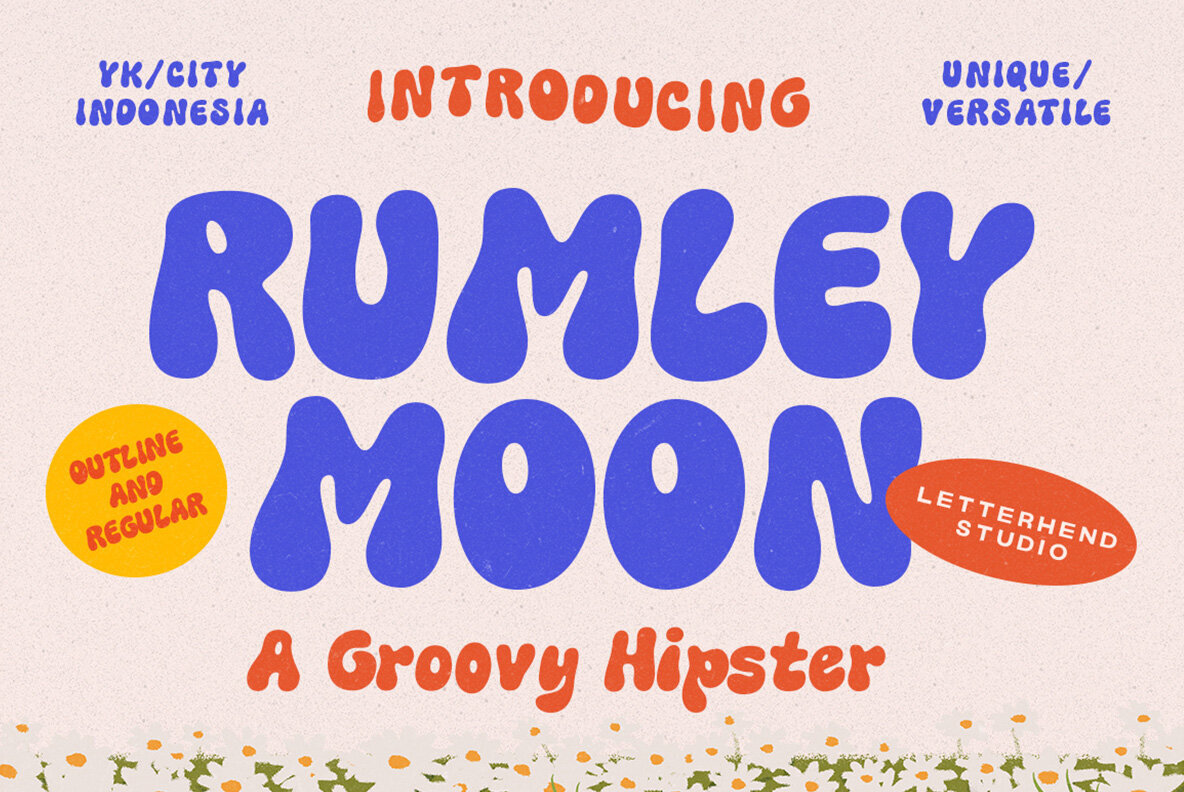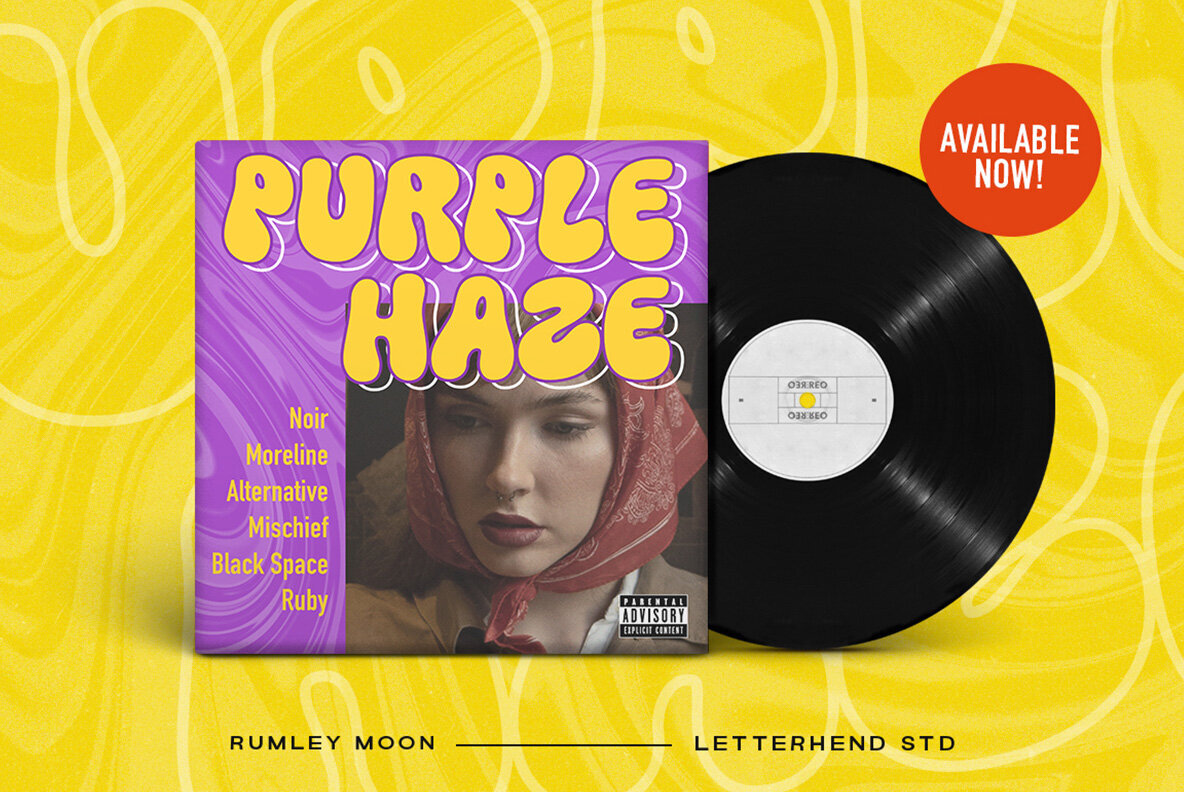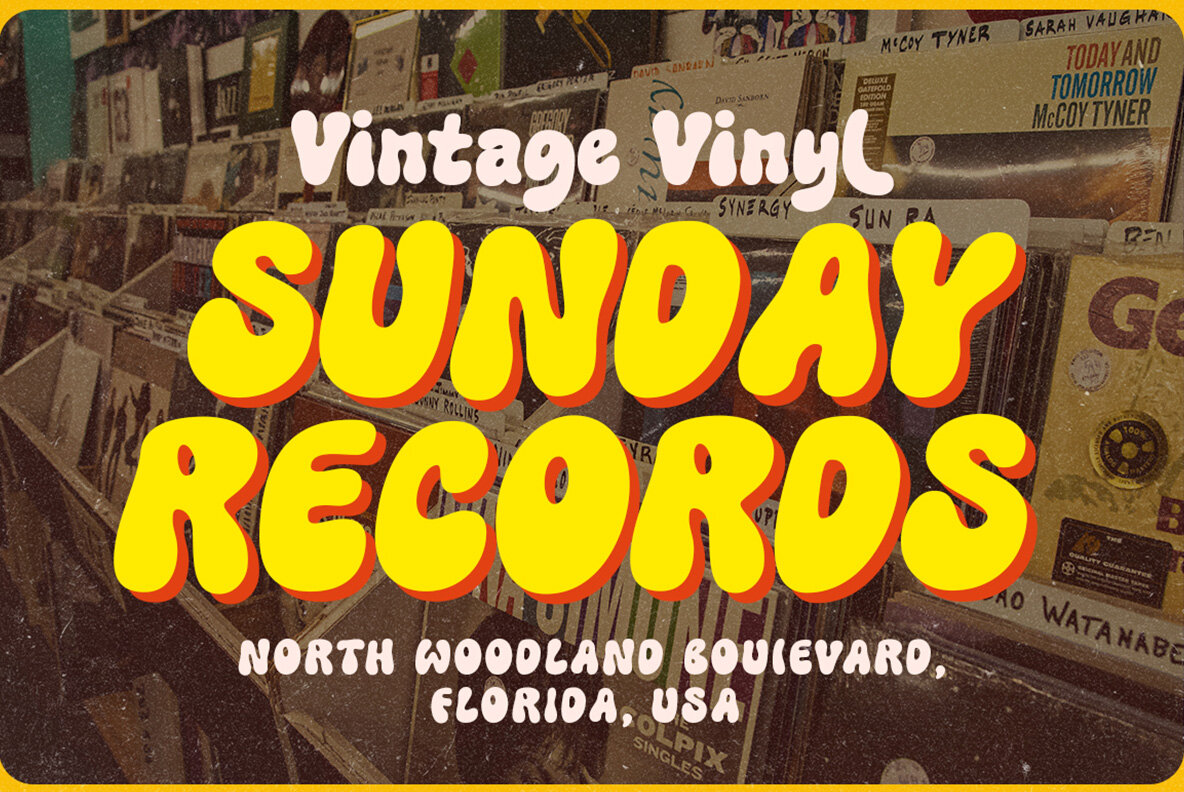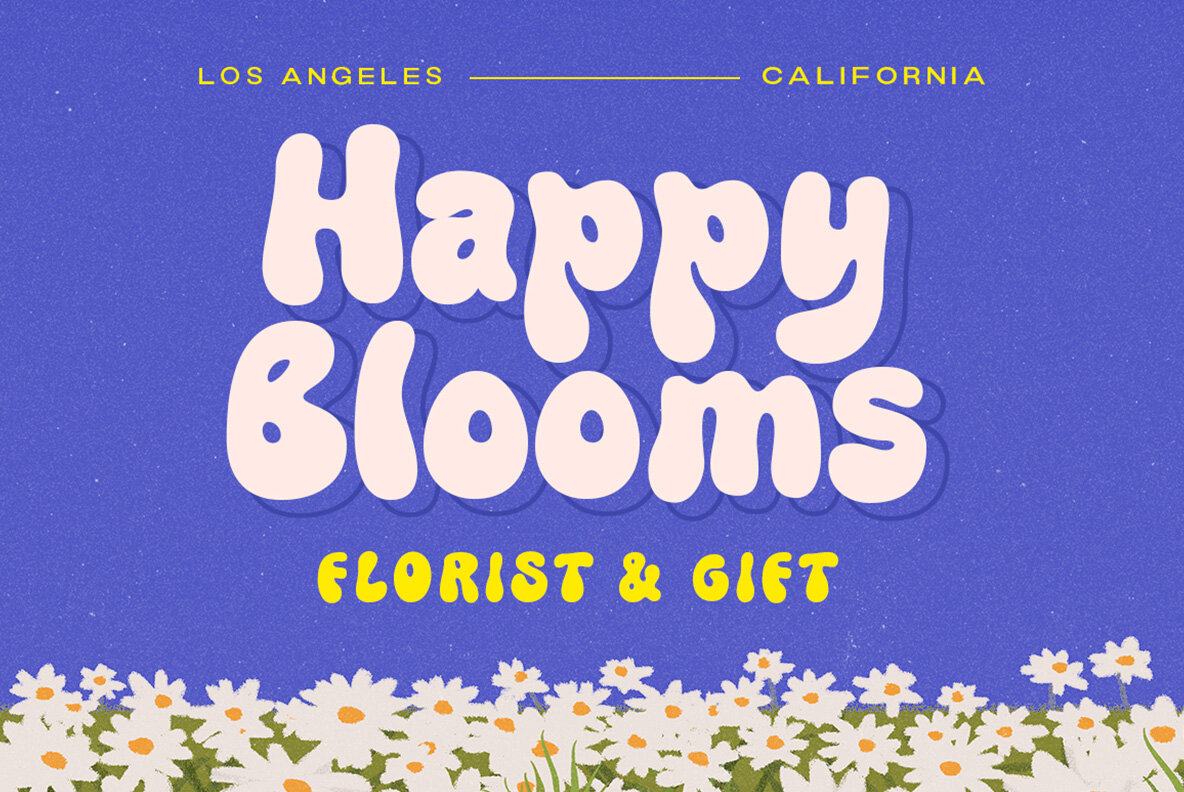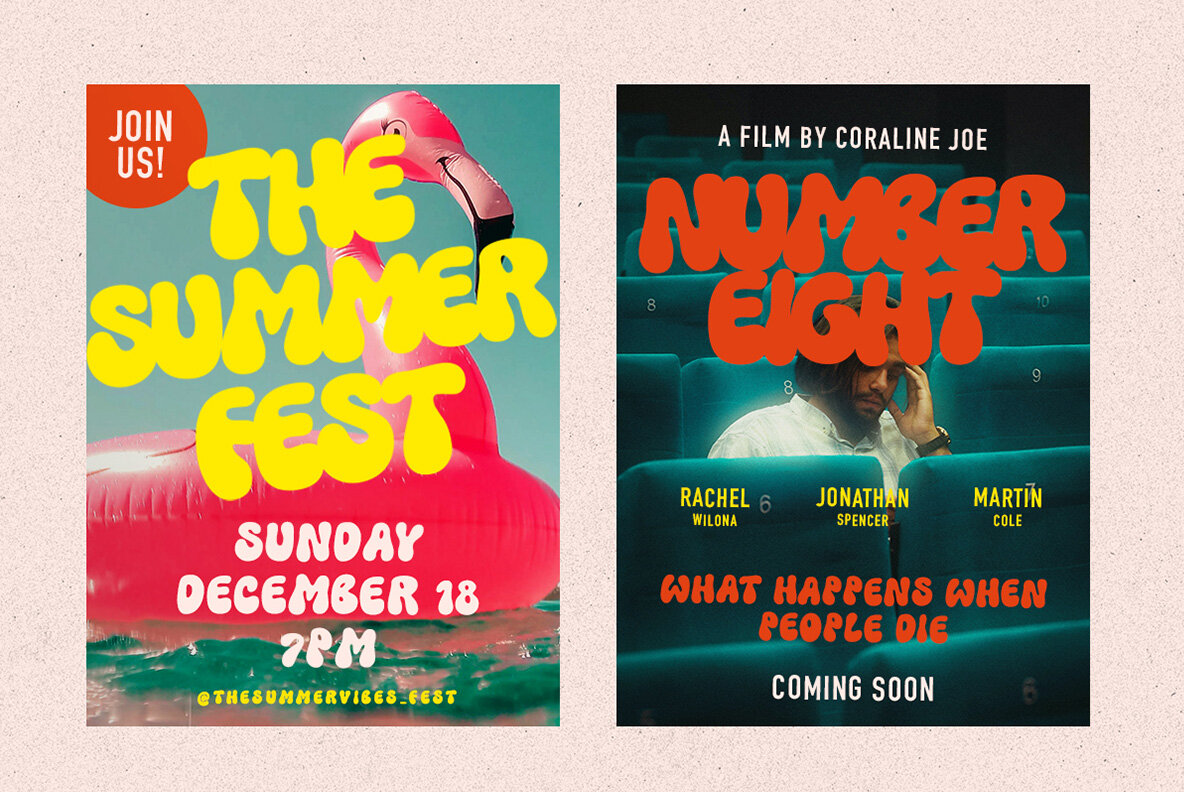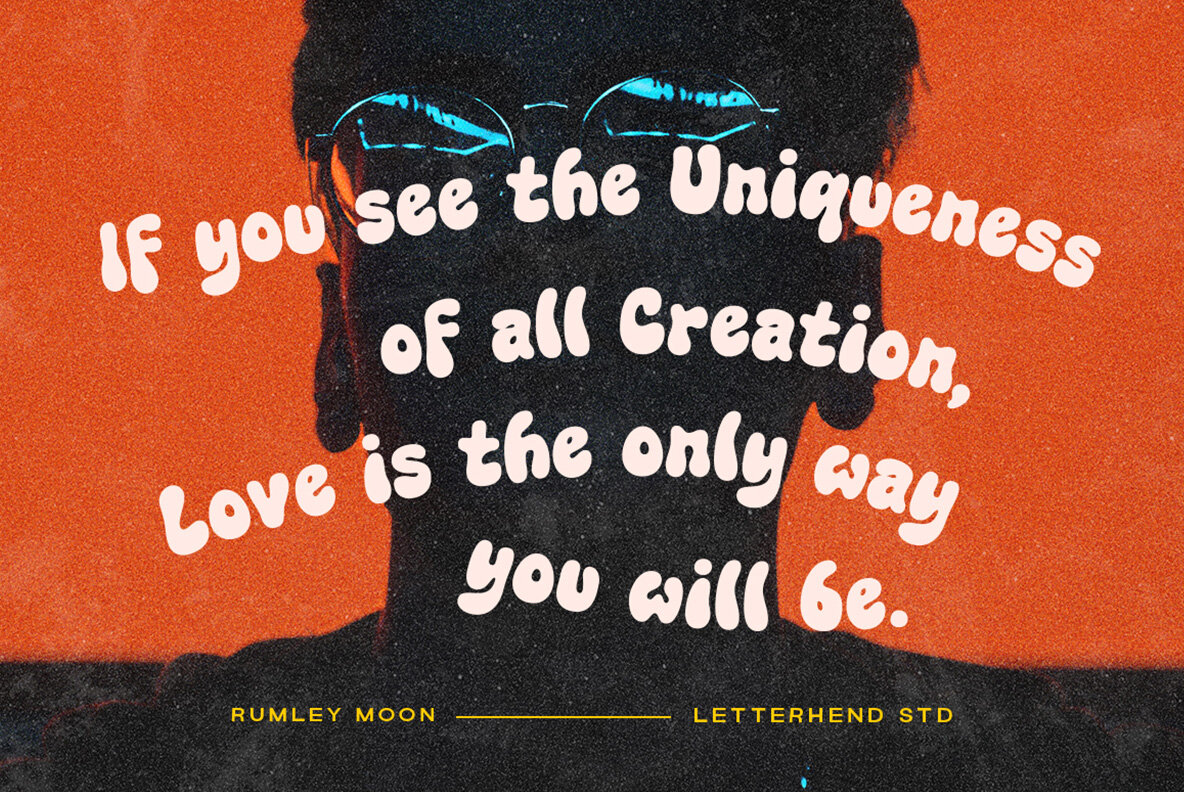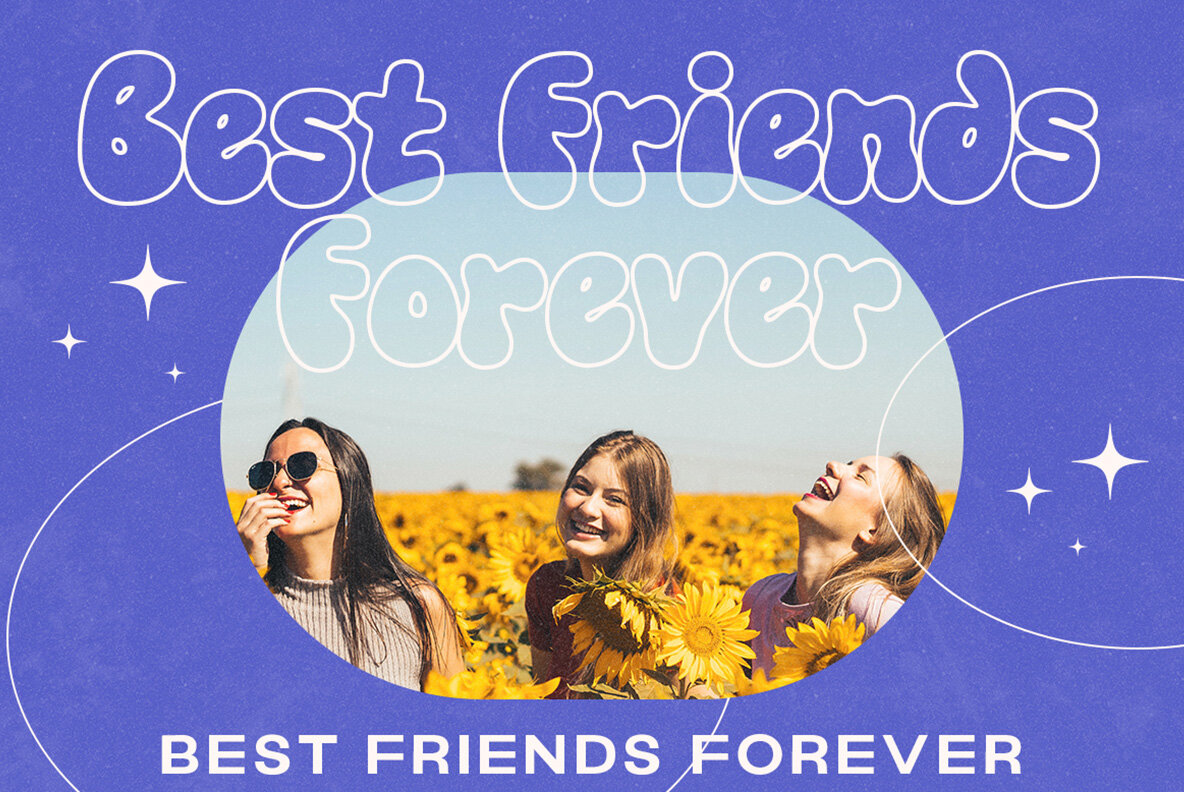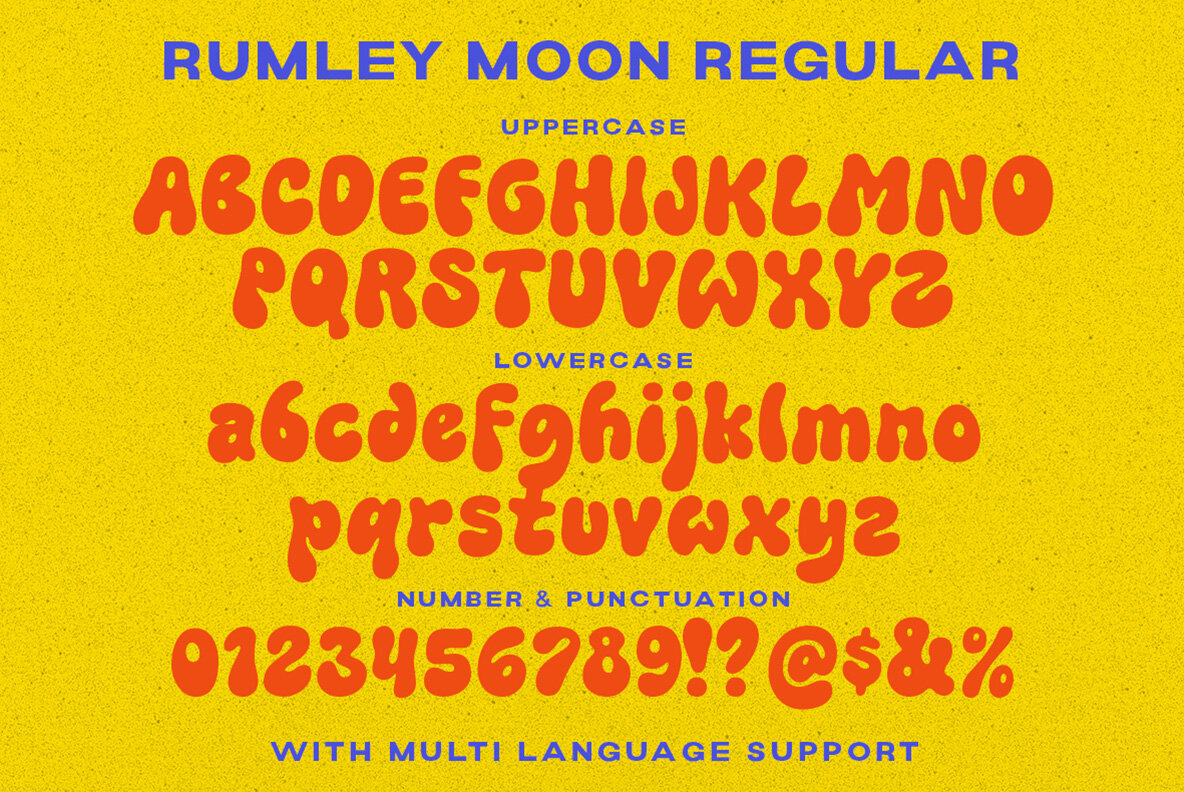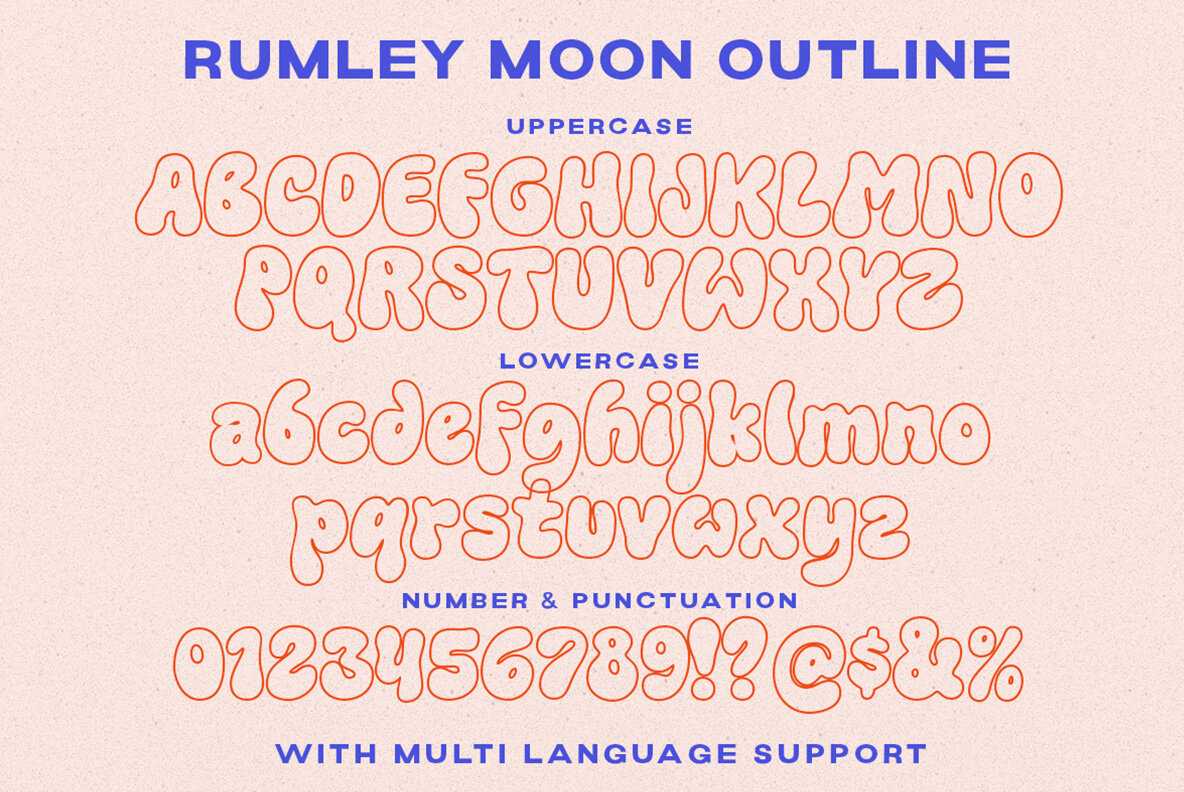
Rumley Moon Font
Rumley Moon by Letterhend Studio offers a bold, versatile typeface infused with a distinctive retro essence. Perfectly crafted for logos and formal applications, it effortlessly suits invitations, books, magazines, and packaging. Its bold character lends it adaptability across a myriad of design settings, from fashion to makeup to stationery, enhancing advertising and branding endeavors. Utilize design software that supports OpenType and Glyphs panels, such as Adobe apps and Corel Draw, to fully explore its potential. For insights on accessing OpenType features, visit the provided tutorial link.Rumley Moon: A Retro-Inspired Bold Font